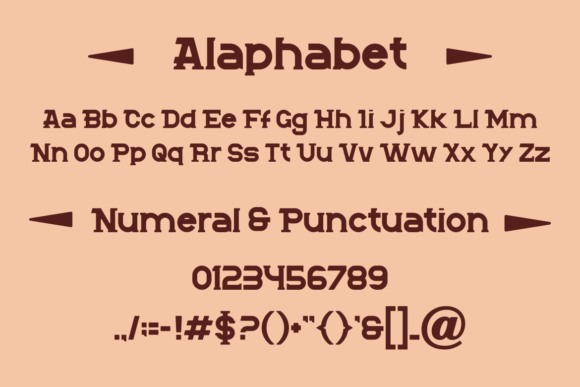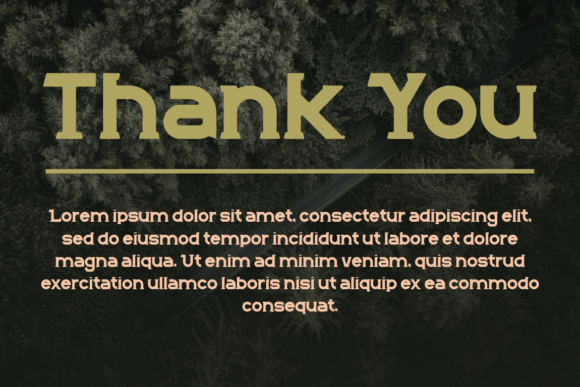
Bullsky Font: Elevate Your Designs with a Classy yet Assertive Display Font
In the world of typography, a font can make or break a design. A well-chosen font can elevate a creation from ordinary to extraordinary, while a poorly chosen one can detract from the overall impact. For designers and crafters looking to add a touch of sophistication and confidence to their work, Bullsky Font is an excellent choice. This classy yet assertive display font is versatile, stylish, and perfect for a wide range of projects.
The Characteristics of Bullsky Font
Bullsky Font is a display font that exudes confidence and style. Its classy design makes it suitable for high-end projects, such as luxury branding, fashion magazines, and upscale advertising campaigns. At the same time, its assertive nature ensures that it can hold its own in bold and attention-grabbing applications, like headlines, titles, and promotional materials.
One of the standout features of Bullsky Font is its versatility. It can be used for a wide range of topics, from elegant and sophisticated to bold and playful. Whether you’re working on a corporate identity, a fashion blog, or a social media campaign, Bullsky Font is an excellent choice.
The Benefits of Using Bullsky Font
So, what makes Bullsky Font an incredible asset to your font library? Here are just a few benefits of using this exceptional display font:
- Elegance and Sophistication: Bullsky Font adds a touch of class and sophistication to any design, making it perfect for high-end projects.
- Versatility: With its unique blend of elegance and assertiveness, Bullsky Font can be used for a wide range of topics and applications.
- Attention-Grabbing: The font’s bold and confident design ensures that it will grab attention and make a lasting impression.
- Easy to Read: Despite its bold nature, Bullsky Font is easy to read, even in smaller sizes.
How to Use Bullsky Font in Your Designs
Now that we’ve covered the benefits of Bullsky Font, let’s explore some ways to incorporate it into your designs:
- Headlines and Titles: Use Bullsky Font to create bold and attention-grabbing headlines and titles that will draw readers in.
- Branding and Identity: Add a touch of sophistication and elegance to your brand’s identity with Bullsky Font.
- Advertising and Marketing: Use Bullsky Font to create eye-catching and effective advertising and marketing materials.
- Fashion and Beauty: Bullsky Font is perfect for fashion and beauty projects, such as fashion magazines, blogs, and social media campaigns.
Tips for Pairing Bullsky Font with Other Fonts
When pairing Bullsky Font with other fonts, it’s essential to choose fonts that complement its classy and assertive nature. Here are some tips:
- Pair with Sans-Serifs: Pair Bullsky Font with sans-serif fonts, such as Arial or Helvetica, for a clean and modern look.
- Combine with Script Fonts: Combine Bullsky Font with elegant script fonts, such as Lobster or Pacifico, for a sophisticated and elegant look.
- Use with Serif Fonts: Pair Bullsky Font with serif fonts, such as Times New Roman or Georgia, for a classic and timeless look.
In conclusion, Bullsky Font is an exceptional display font that can elevate any design with its classy yet assertive design. Its versatility, elegance, and attention-grabbing nature make it perfect for a wide range of projects, from luxury branding to fashion and beauty applications. By incorporating Bullsky Font into your font library, you’ll have a powerful tool to take your designs to the next level.